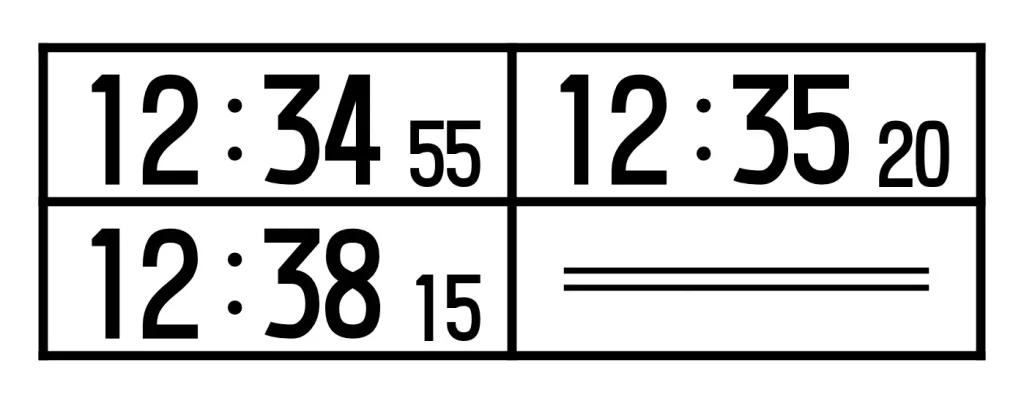
XF_Nstf is a free compact font inspired by train schedules used by train crews.
The character set contains 38 glyphs: uppercase A–Z, numerals 0–9, a colon, and an equals sign.
- Contains 38 glyphs covering uppercase A–Z, numerals 0–9, a colon, and an equals sign.
- Uses a compact design inspired by train schedules carried by train crews.
- Railway and transit-themed posters or graphics.
- Timetable, schedule, and departure-board concepts.
- Compact labels and short display text in interface mockups.